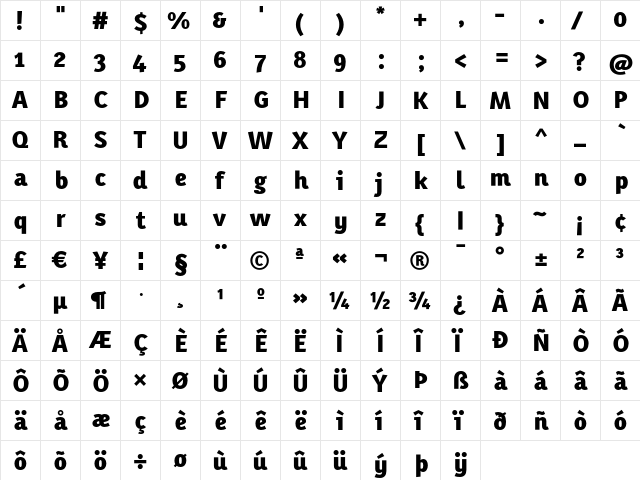
Karbid ExtraBold
Design Context for Karbid Typeface
Karbid takes a measured approach to typography — its balanced proportions and neutral character make it a reliable workhorse for both digital and print work. The heavy weight commands attention and anchors typographic hierarchies.